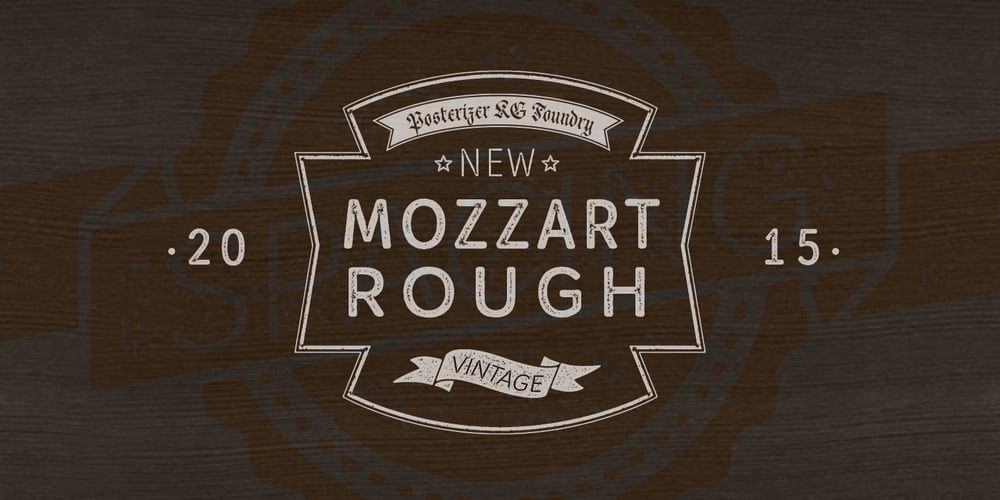
Mozzart Rough Font Family was designed by Lazar Dimitrijević and published by Posterizer KG. Mozzart Rough contains 5 styles and family package options. Vintage, printed look Mozzart Rough typeface from Posterizer KG Type Foundry is one of two decorative versions of Mozzart Sans font family (slightly rounded, Neo-Grotesque corporate font, created for MOZZART D.O.O. company from Belgrade, Serbia). Mozzart Rough contains: 2 Weights, 2 Condensed and 1 Oblique version of the font, complementing each other perfectly. All versions contains completely MacOS Roman and MacOS Cyrillic code pages, tabular figures, small caps… Along with all of this, you will also discover extra added unique ornaments and symbols. It will be helpful for users to create realistic letterpress pages. Enjoy! Because of its complex outlines, Eveleth may process slowly in some applications.